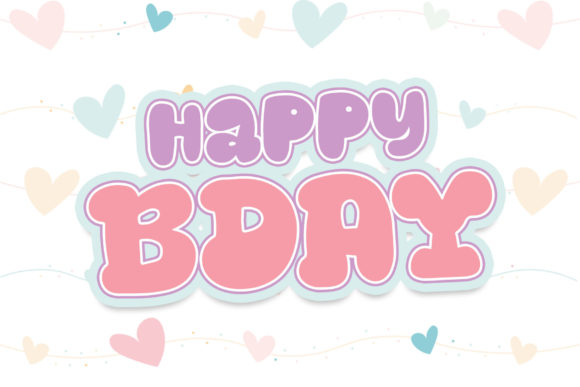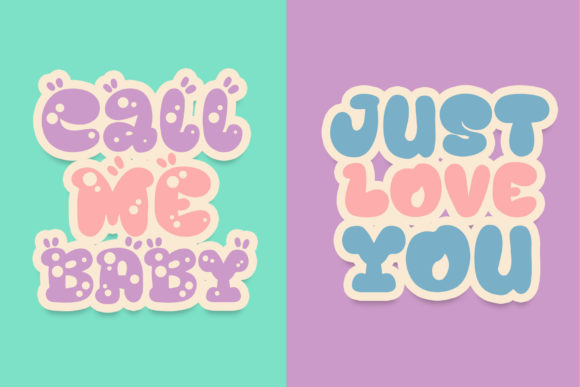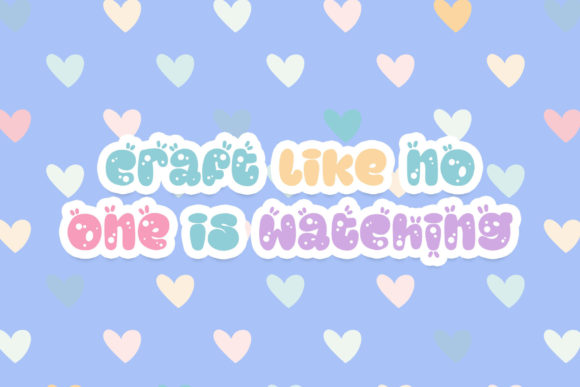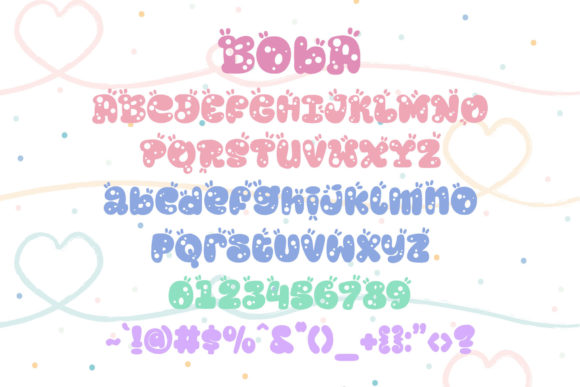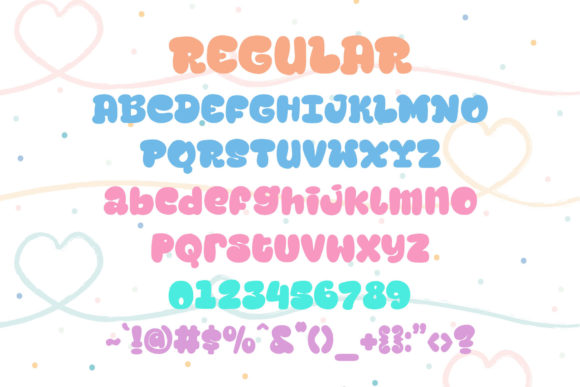
Boba Party Font: The Perfect Addition to Your Crafty Projects
Are you a designer or crafter looking for a unique and playful font to add a touch of personality to your projects? Look no further than the Boba Party Font! This adorable, fun, and bubbly decorative font is sure to bring a smile to your face and make your creations stand out.
What is Boba Party Font?
Boba Party is a cute, fun, and bubbly decorative font that is perfect for a wide range of crafty ideas. Its original look is sure to appeal to anyone looking to add a touch of whimsy and playfulness to their designs. Whether you’re working on letterheads, titles, stationery, or any other project, Boba Party Font is the perfect choice.
Characteristics of Boba Party Font
So, what makes Boba Party Font so special? Here are just a few of its key characteristics:
- Cute and Playful: Boba Party Font is designed to be fun and playful, making it perfect for projects that require a lighthearted touch.
- Decorative: This font is a true decorative font, with intricate details and a unique look that will make your projects stand out.
- Versatile: Boba Party Font can be used for a wide range of projects, from letterheads and titles to stationery and more.
- Easy to Read: Despite its decorative nature, Boba Party Font is still easy to read, making it perfect for use in a variety of contexts.
Uses for Boba Party Font
So, what can you use Boba Party Font for? The possibilities are endless! Here are a few ideas to get you started:
- Stationery: Add a touch of personality to your stationery with Boba Party Font. Use it for letterheads, greeting cards, and more.
- Titles and Headings: Use Boba Party Font to add a playful touch to your titles and headings. It’s perfect for blog posts, articles, and more.
- Crafting Projects: Boba Party Font is perfect for a wide range of crafting projects, from scrapbooking to DIY signs.
- Social Media Graphics: Use Boba Party Font to add a playful touch to your social media graphics. It’s perfect for creating eye-catching posts and stories.
Tips for Using Boba Party Font
Here are a few tips for getting the most out of Boba Party Font:
- Use it Sparingly: While Boba Party Font is cute and playful, it can be overwhelming if used too much. Use it sparingly to add a touch of personality to your projects.
- Pair it with Other Fonts: Boba Party Font pairs well with a wide range of other fonts. Experiment with different combinations to find the perfect look for your project.
- Experiment with Colors: Boba Party Font looks great in a wide range of colors. Experiment with different colors to find the perfect look for your project.
In conclusion, Boba Party Font is a fun, playful, and decorative font that is perfect for a wide range of crafty projects. Its cute and bubbly design is sure to bring a smile to your face and make your creations stand out. Whether you’re a designer or crafter, Boba Party Font is a great addition to your toolkit.
Overall, Boba Party Font is a great choice for anyone looking to add a touch of personality and whimsy to their projects. Its cute and playful design is sure to make your creations stand out, and its versatility makes it perfect for a wide range of uses.